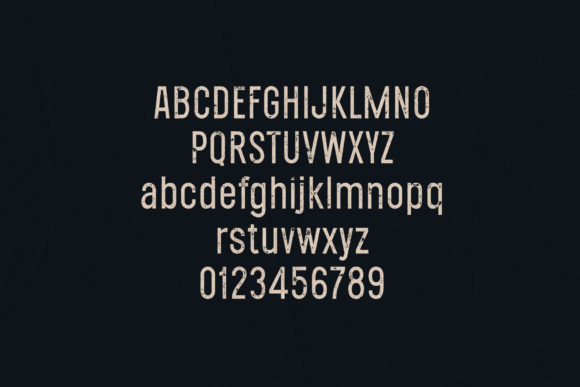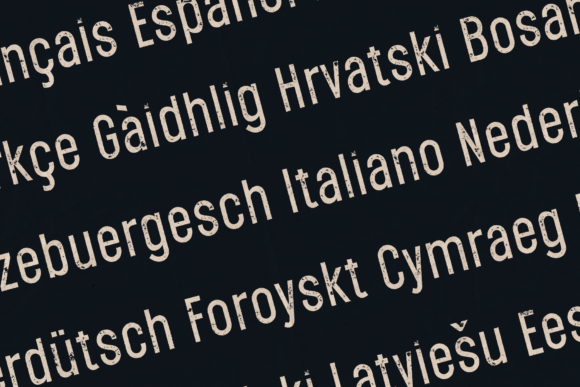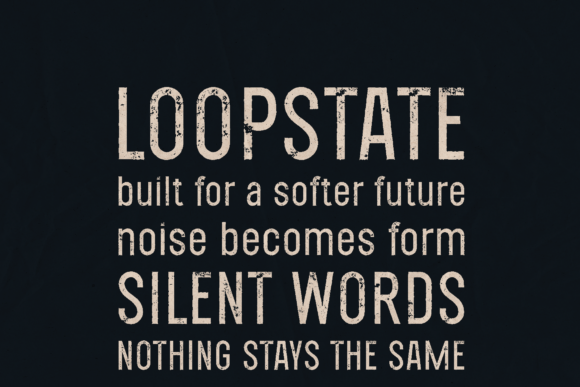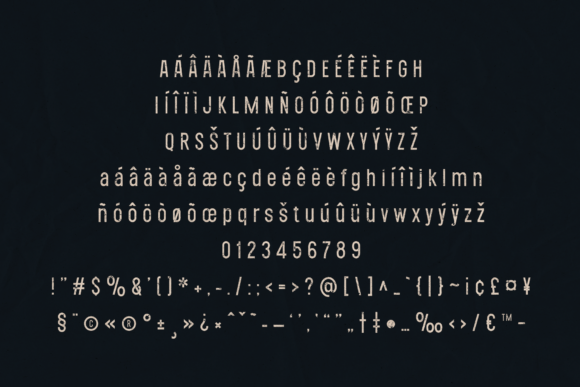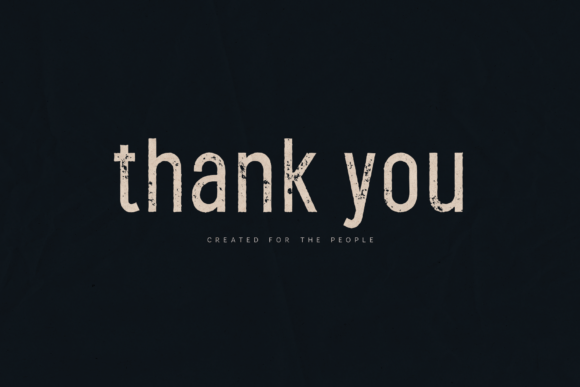
Ecliso Font: A Bold Distressed Sans Serif Typeface for Designers and Crafters
In the world of typography, fonts play a crucial role in conveying the tone and personality of a brand or design. For designers and crafters looking to add a touch of raw, authentic charm to their work, the Ecliso Font is an excellent choice. Specifically, the Ecliso Rough Edition is a bold distressed sans serif typeface that has been gaining popularity for its unique texture and handcrafted feel.
The Inspiration Behind Ecliso Rough Edition
The Ecliso Rough Edition was inspired by the worn, vintage look of ink-stained letters, aged posters, and handmade signage. The designers aimed to capture the essence of a bygone era, where letters were printed on worn paper or handwritten on distressed surfaces. The result is a font that exudes a strong, handcrafted personality while maintaining clear and readable letterforms.
Key Features of Ecliso Rough Edition
The Ecliso Rough Edition boasts several key features that make it an attractive choice for designers and crafters:
- Bold and Distressed Texture: The font features a dense, vintage texture that gives every letter a raw and authentic printed appearance.
- Natural Grunge Effect: The textured strokes create a natural grunge effect that works beautifully in bold headlines, posters, branding, and packaging.
- Clear and Readable Letterforms: Despite its distressed texture, the font maintains clear and readable letterforms, making it suitable for a wide range of design applications.
- Handcrafted Personality: The Ecliso Rough Edition delivers a strong, handcrafted personality that adds a touch of warmth and authenticity to any design.
Design Applications for Ecliso Rough Edition
The Ecliso Rough Edition is a versatile font that can be used in a variety of design applications, including:
- Headlines and Titles: The font’s bold, distressed texture makes it perfect for creating eye-catching headlines and titles.
- Posters and Flyers: The Ecliso Rough Edition is ideal for creating posters and flyers that require a bold, attention-grabbing font.
- Branding and Packaging: The font’s handcrafted personality and natural grunge effect make it suitable for branding and packaging designs that require a unique, authentic look.
- Signage and Advertising: The Ecliso Rough Edition can be used to create eye-catching signage and advertising materials that stand out from the crowd.
Tips for Using Ecliso Rough Edition
To get the most out of the Ecliso Rough Edition, here are some tips for using the font:
- Use it Boldly: The Ecliso Rough Edition is a bold font, so don’t be afraid to use it in large sizes to create a statement.
- Experiment with Colors: The font’s distressed texture works well with a range of colors, so experiment with different hues to find the perfect combination.
- Pair it with Other Fonts: The Ecliso Rough Edition can be paired with other fonts to create a unique and interesting contrast.
The Ecliso Rough Edition is a bold, distressed sans serif typeface that is perfect for designers and crafters looking to add a touch of raw, authentic charm to their work. With its dense, vintage texture and natural grunge effect, this font is ideal for creating eye-catching headlines, posters, branding, and packaging designs. Whether you’re a seasoned designer or a crafter looking to add some personality to your work, the Ecliso Rough Edition is definitely worth checking out.